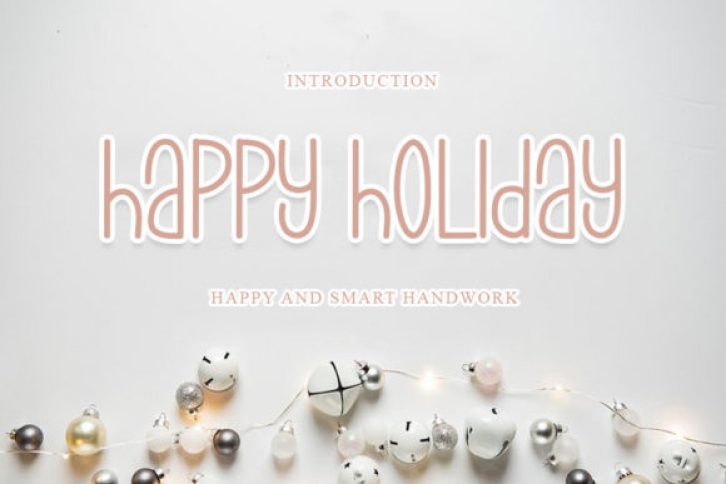
Happy Holiday is a charming sans serif font. Clear and graceful, this font will elevate the look of your creations such as social media posts, labels, marketing materials, watermarks, and more!